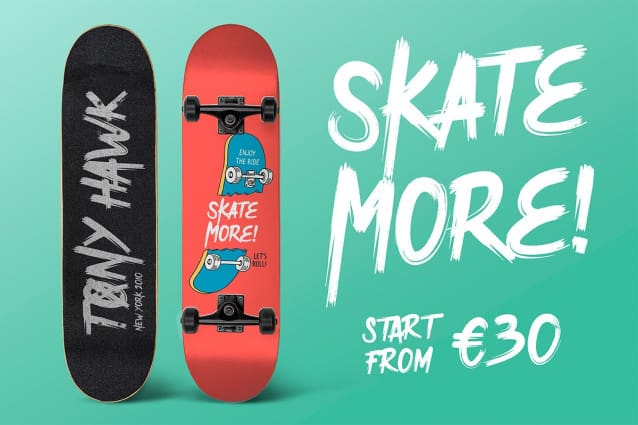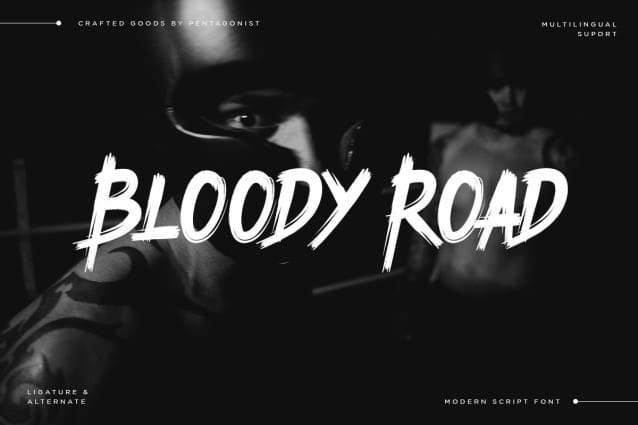
Bloody Road Font
Bloody Road Font is an eye-catching and provocative display font. Its stirring and stunning calligraphy make it an excellent fit for various design projects! This font is PUA encoded, which means you can easily access all of the fantastic glyphs and ligatures!